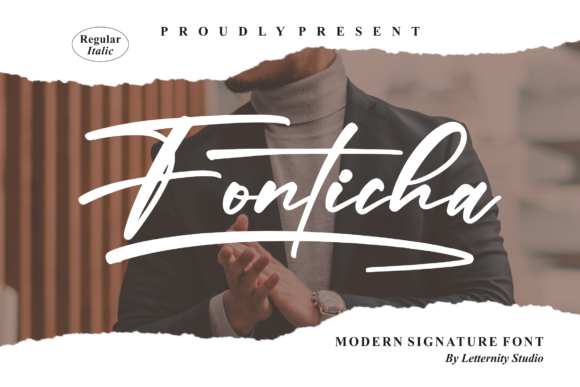
Introducing Fonticha Font: Elevate Your Designs with Delicate Elegance
In the world of typography, a font can make or break a design. For crafters, designers, and creatives looking to infuse their projects with a touch of elegance and sophistication, Fonticha Font emerges as a game-changer. This delicate and stylish handwritten font is not just a typeface; it’s an experience. With its beautiful and adaptable nature, Fonticha is poised to breathe life into every creation it touches.
The Essence of Fonticha Font
Fonticha Font embodies the perfect blend of delicacy and style. Its handwritten nature lends a personal and intimate feel to any project, making it an ideal choice for designers who aim to connect with their audience on a more emotional level. Whether you’re working on a branding project, crafting a unique invitation, or designing a captivating poster, Fonticha’s elegance shines through, adding a layer of sophistication that’s hard to achieve with more conventional typefaces.
One of the standout features of Fonticha Font is its adaptability. This versatility is a boon for designers who work on a wide range of projects. From the digital realm of website design and social media graphics to the more traditional domains of print design, packaging, and even embroidery, Fonticha seamlessly integrates, ensuring that your design maintains its coherence and aesthetic appeal across different mediums.
Bringing Creations to Life
The promise of making each of your creations come alive is not an overstatement when it comes to Fonticha. The font’s unique character and gentle flow can transform mundane text into a statement piece. For crafters and DIY enthusiasts, this means that even handmade projects, such as journals, cards, and bespoke gifts, can be elevated to professional-looking creations with the simple addition of Fonticha.
Why Designers and Crafters Love Fonticha
- Ease of Use: Despite its sophisticated appearance, Fonticha is remarkably easy to use, making it accessible to both seasoned designers and beginners.
- Emotional Connection: The font’s handwritten quality helps create a more personal connection with the audience, making it perfect for projects where engagement is key.
- Customization: The adaptability of Fonticha allows for a high degree of customization, enabling designers to tweak the font to fit their project’s specific needs.
Tips for Maximizing Fonticha’s Potential
To truly leverage the beauty of Fonticha, consider the following tips:
- Pair with Complementary Fonts: While Fonticha is stunning on its own, pairing it with a complementary sans-serif font can enhance its beauty and create visual interest.
- Experiment with Colors: Don’t be afraid to play with different colors. Fonticha’s delicate nature looks great in subtle, pastel shades or bold and bright hues, depending on the desired effect.
- Use it Large: To make a statement, use Fonticha in large sizes. Its elegance shines through when used as a headline or title.
Fonticha Font is more than just a typeface; it’s a tool for designers and crafters to express their creativity and bring their visions to life. Its delicate elegance, combined with its adaptability and ease of use, makes it an invaluable asset in any creative arsenal. Whether you’re a professional designer looking to elevate your branding projects or a crafter aiming to add a professional touch to your handmade goods, Fonticha is sure to exceed your expectations. Embrace the beauty of Fonticha and watch your designs transform into captivating works of art.